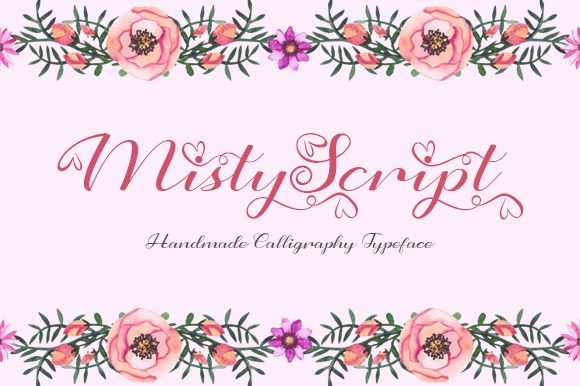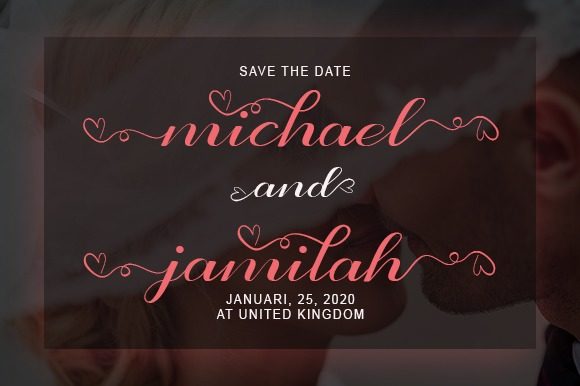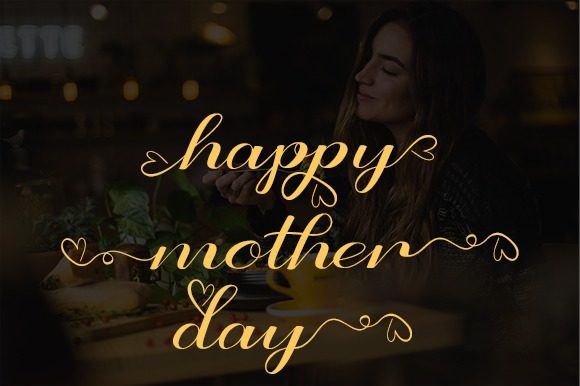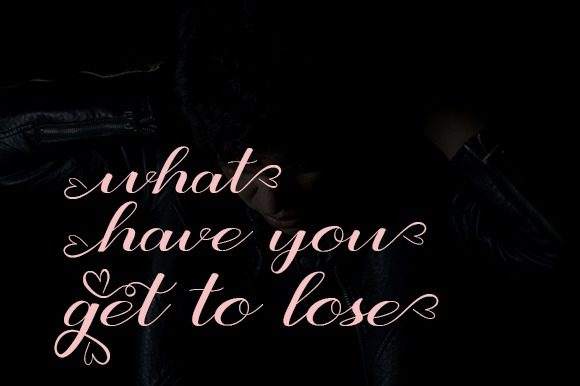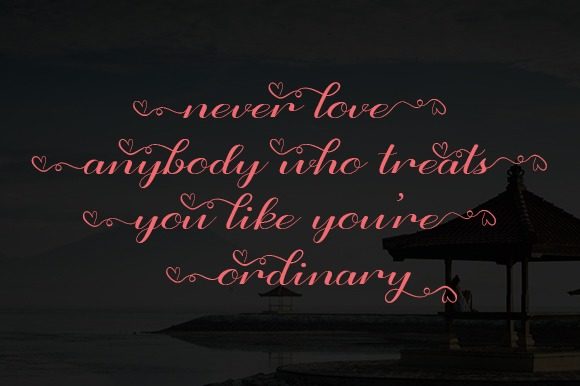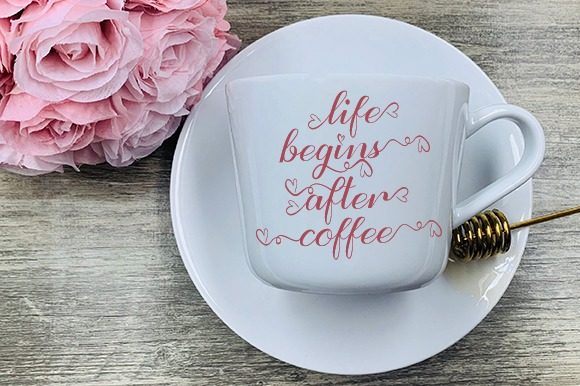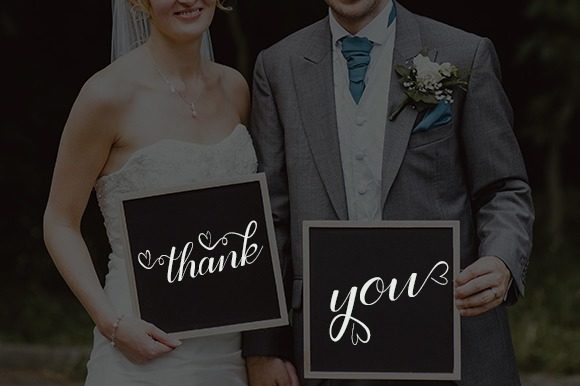
Misty Script Font
About Misty Script Font
Misty Script is a beautiful handwritten font with a handmade calligraphy style, decorative characters, and a dancing baseline! It will look incredible on greeting cards, branding materials, business cards, quotes, posters, and more!